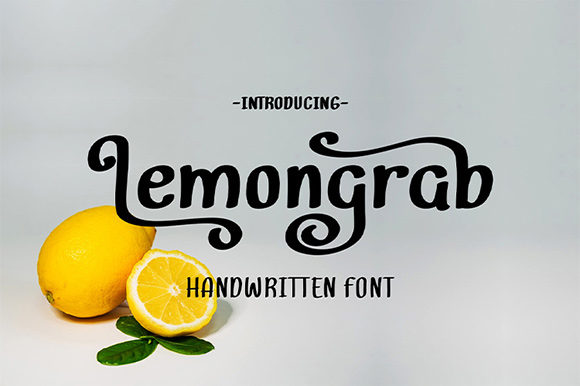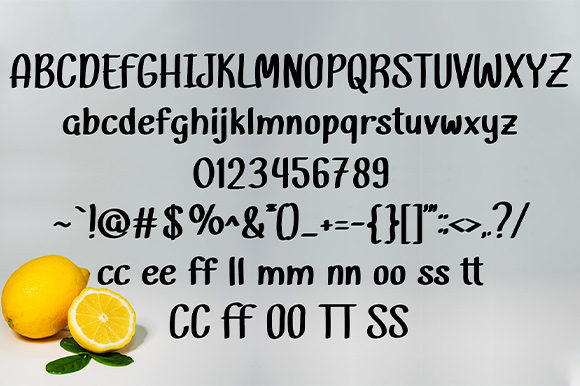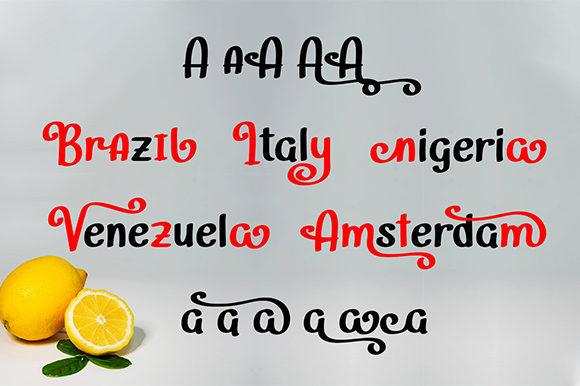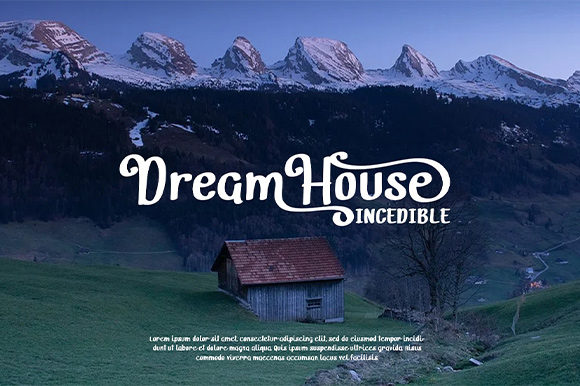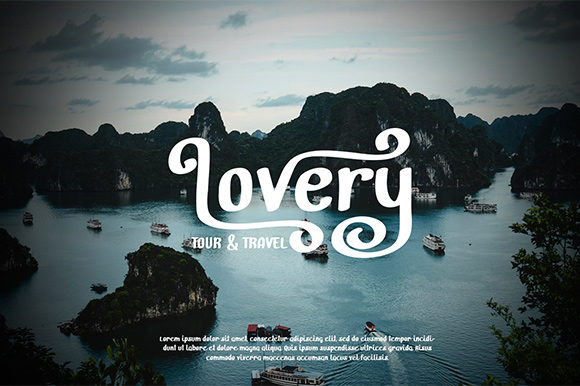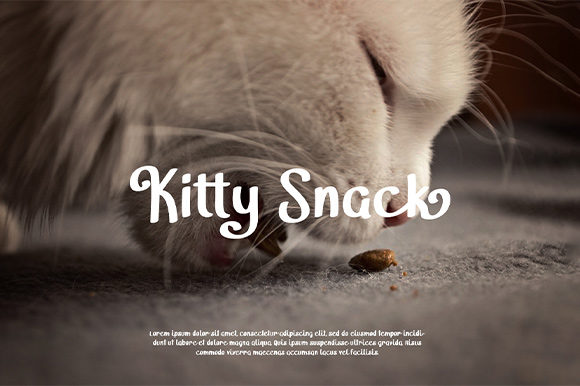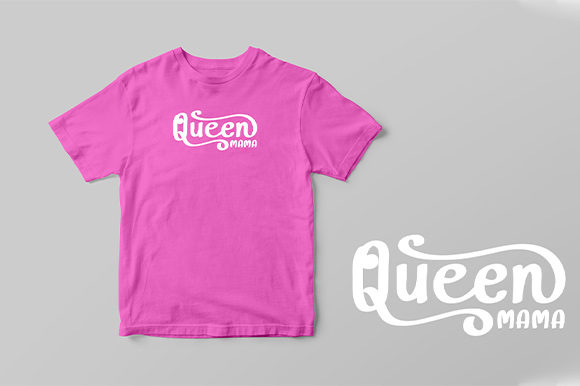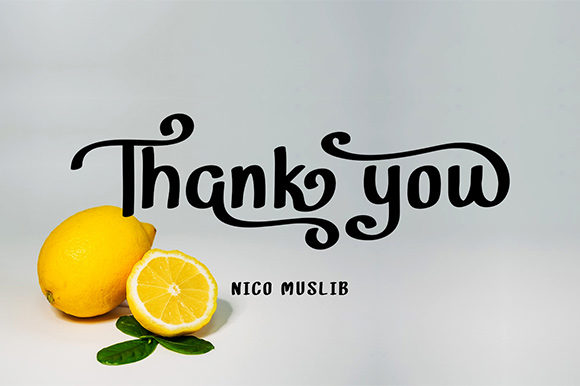
Lemongrab Font
About Lemongrab Font
Lemongrab results out of a stunning pairing of a brush pen and pencil that makes it look incredibly endearing and authentic. Use this gorgeous and unique handwritten font to bring any DIY project to life!